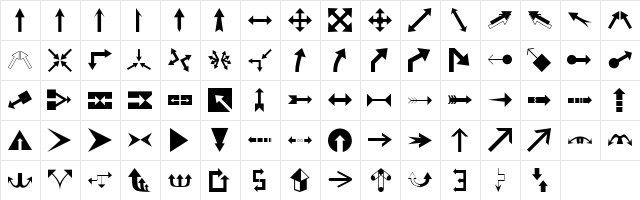
Carr Arrows (filled) Regular Font Preview
Carr Arrows (filled) Regular
Design Context for Carr Arrows (filled) Typeface
Carr Arrows (filled) takes a measured approach to typography — its balanced proportions and neutral character make it a reliable workhorse for both digital and print work.